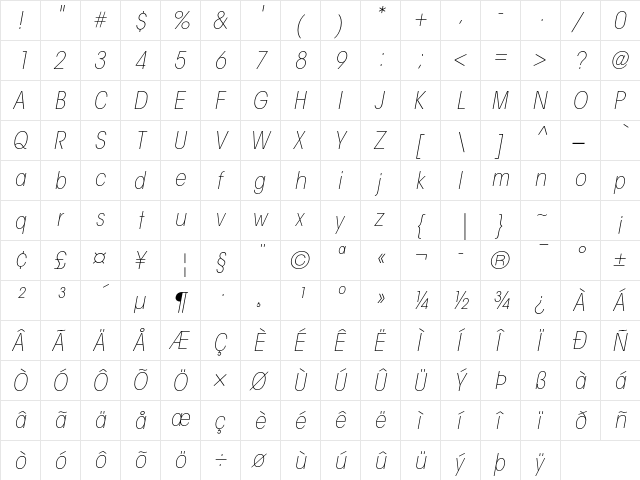
ITC Avant Garde Gothic Std Extra Light Condensed Oblique Font Preview
| Designer | Herb Lubalin, Tom Carnase, Ed Benguiat, Adobe Type Staff |
Design Context for ITC Avant Garde Gothic Std Typeface
ITC Avant Garde Gothic Std has the quiet confidence of well-executed sans-serif typography: versatile, unobtrusive, and dependable at any size. Its italic angle brings a sense of urgency and motion to the letterforms. The delicate stroke weight brings airiness and refinement to layouts. The condensed width makes it efficient for tight spaces without sacrificing legibility.
A natural fit for high-end product packaging, luxury brand identities, and refined web typography.
Font Pairing: Pair ITC Avant Garde Gothic Std with a medium or bold serif for headlines — the weight contrast creates an elegant, high-end feel.
Pro Tip: Use ITC Avant Garde Gothic Std tightly set in headlines and banners — its condensed proportions make it ideal for maximum impact in minimum horizontal space.